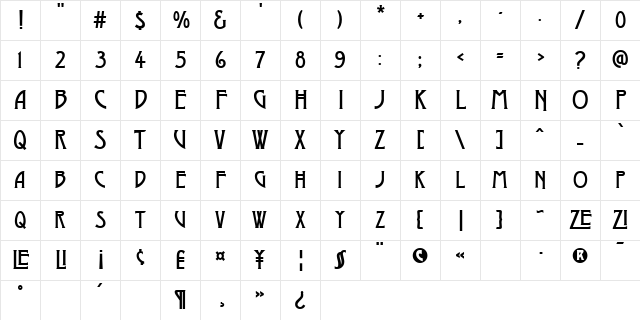
Moderno One Regular
Foundry: Alexandra Gophmann
Designer: Gophmann A.L.
Design Context for Moderno One
Moderno One is a composed and adaptable typeface that performs quietly and consistently across a wide range of design contexts.